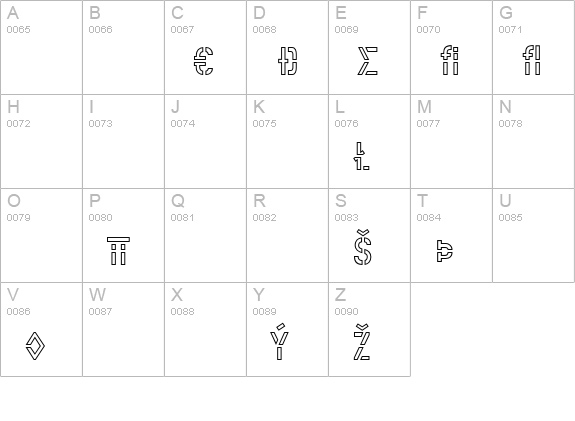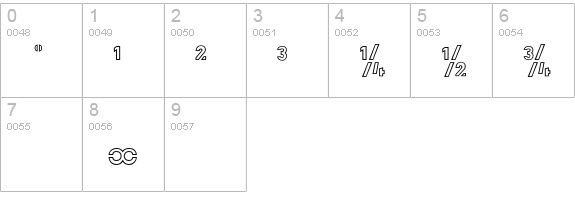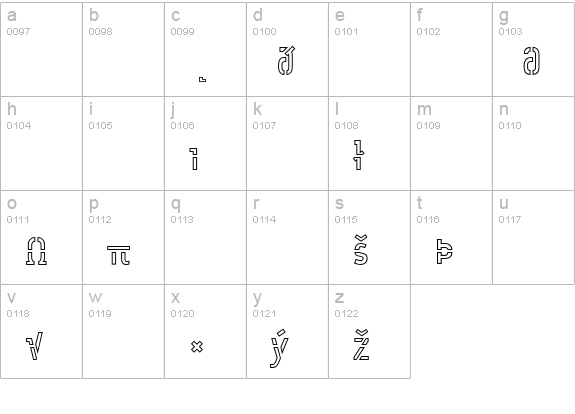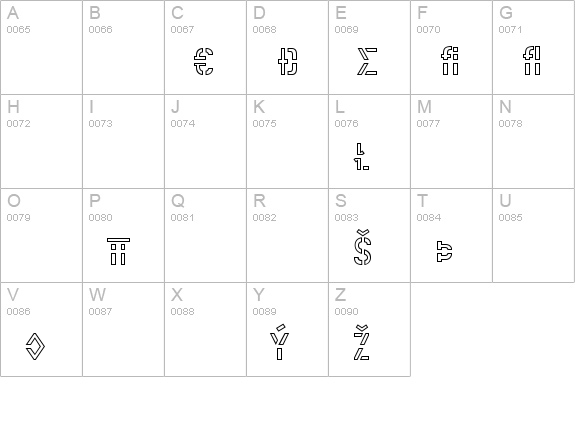
The Offline-OutlineExpert font is a stylish and modern typeface that exudes creativity and sophistication. Its intricate outline design adds a unique touch to any project, making it perfect for titles, headings, and other eye-catching elements. This font strikes the perfect balance between elegance and playfulness, making it versatile for a wide range of design applications. Best of all, the Offline-OutlineExpert font is available for free download at FontsMarket.com. With its sleek lines and contemporary aesthetic, this font is sure to elevate your designs and leave a lasting impression. Add a touch of flair to your projects with Offline-OutlineExpert today!